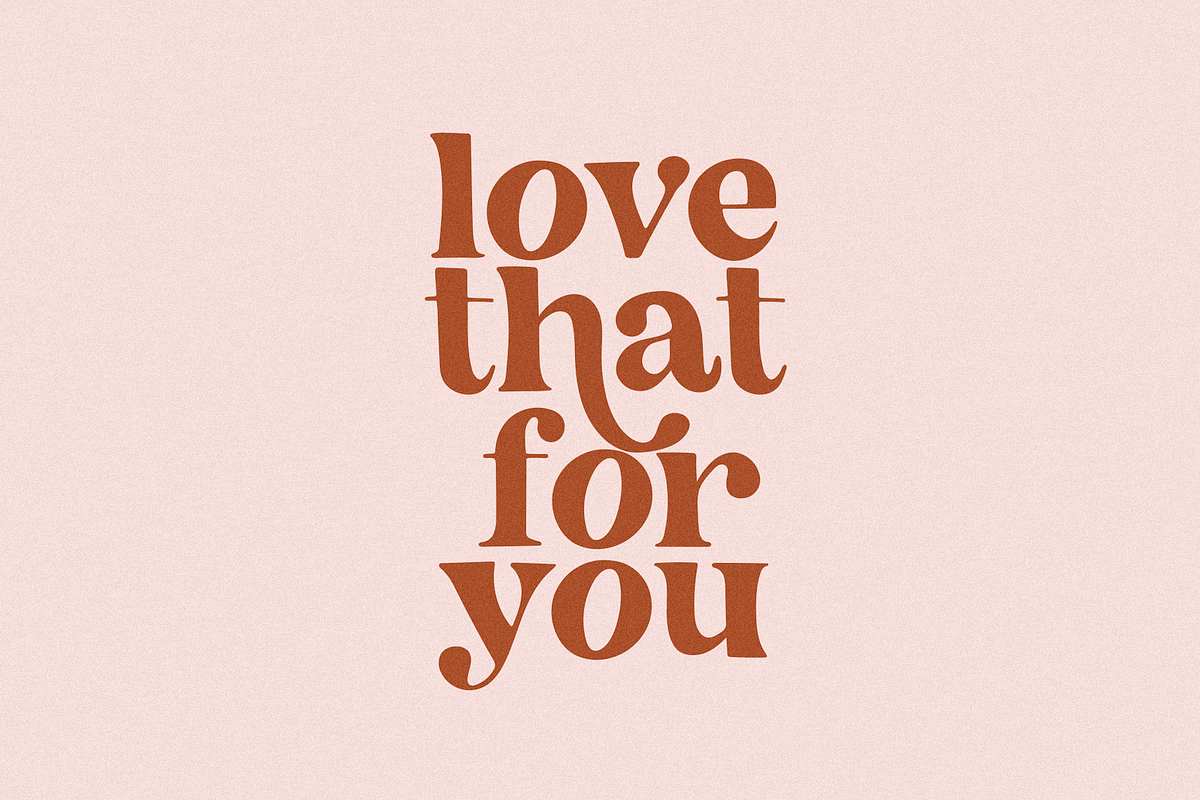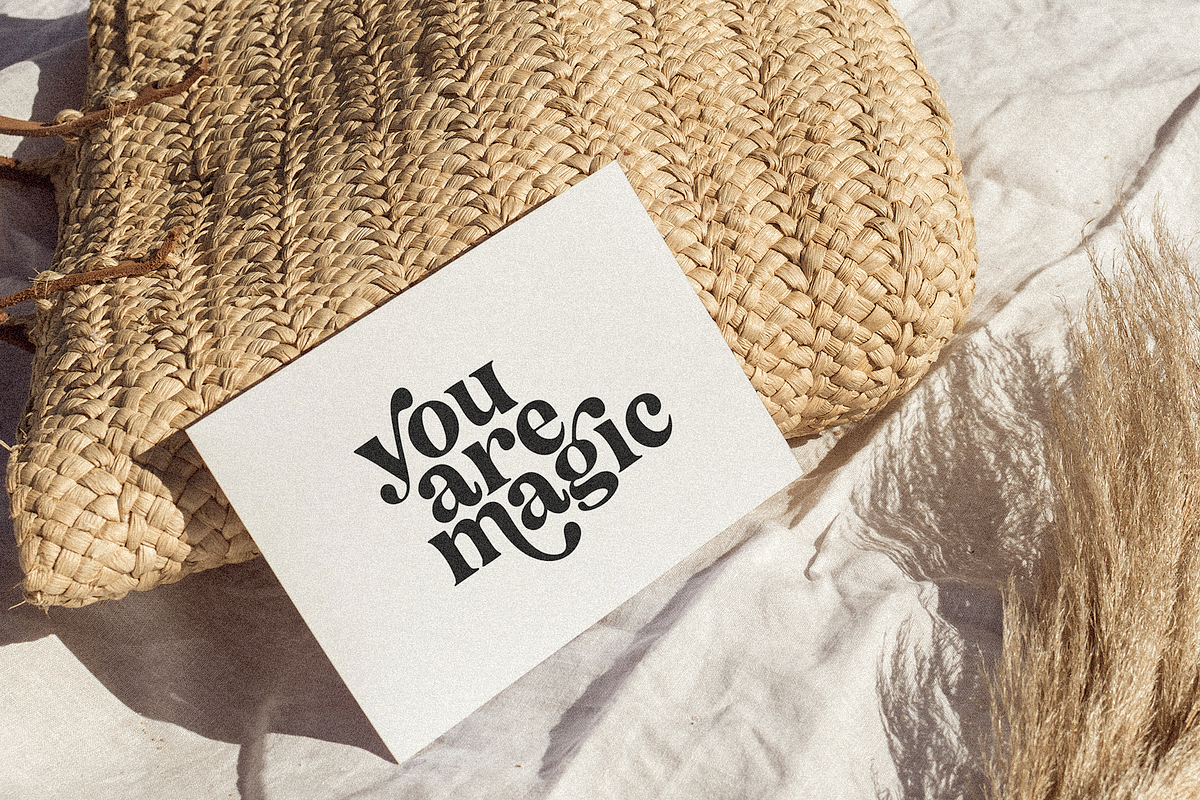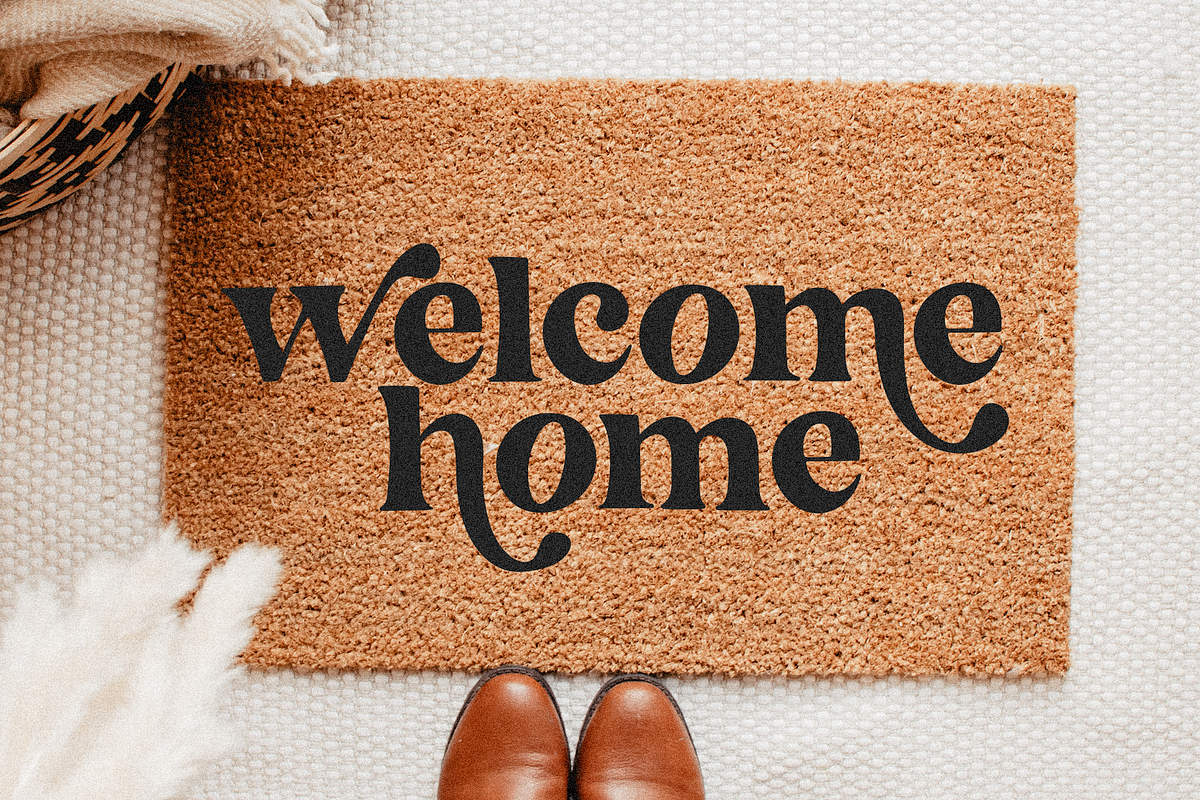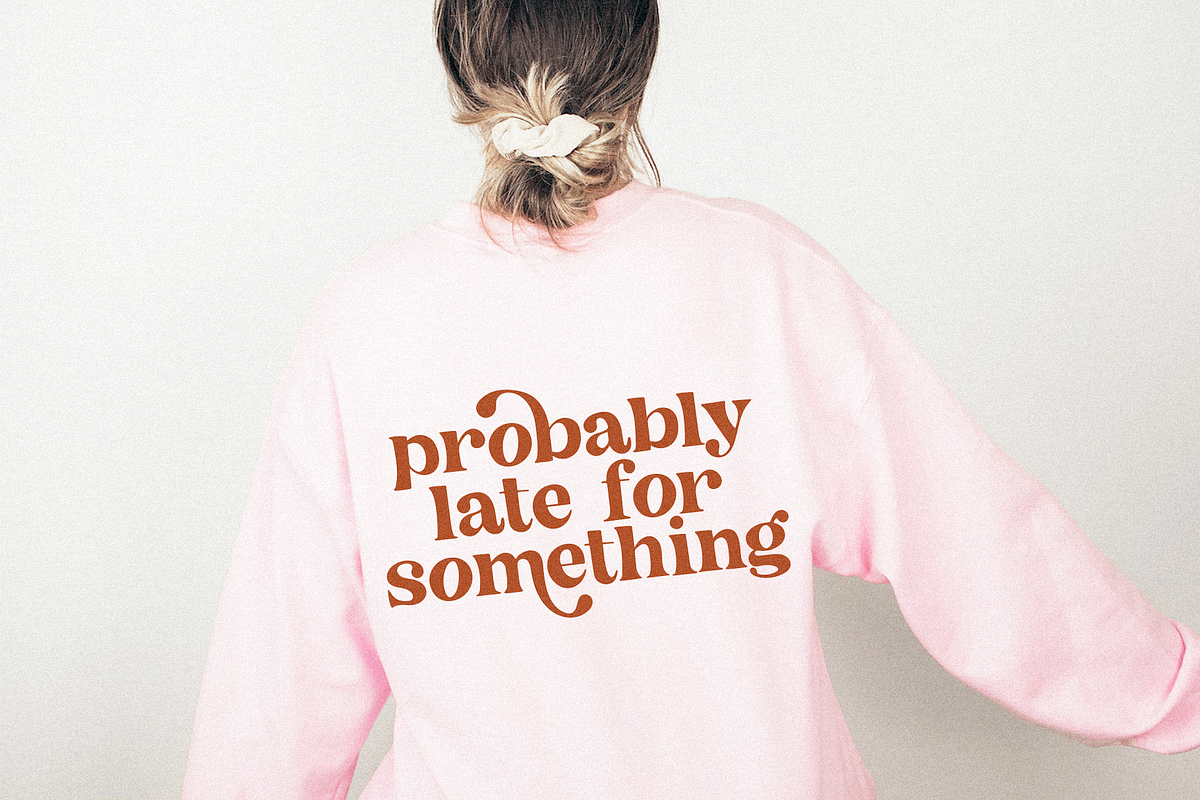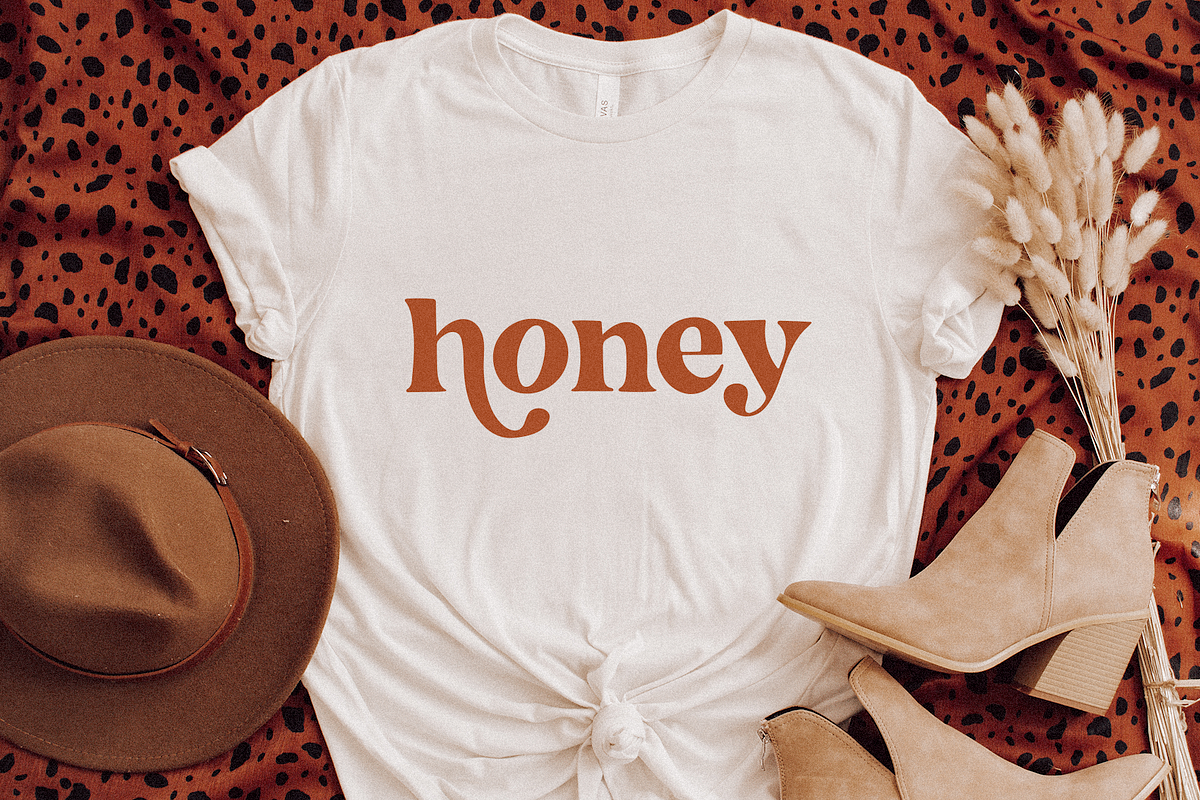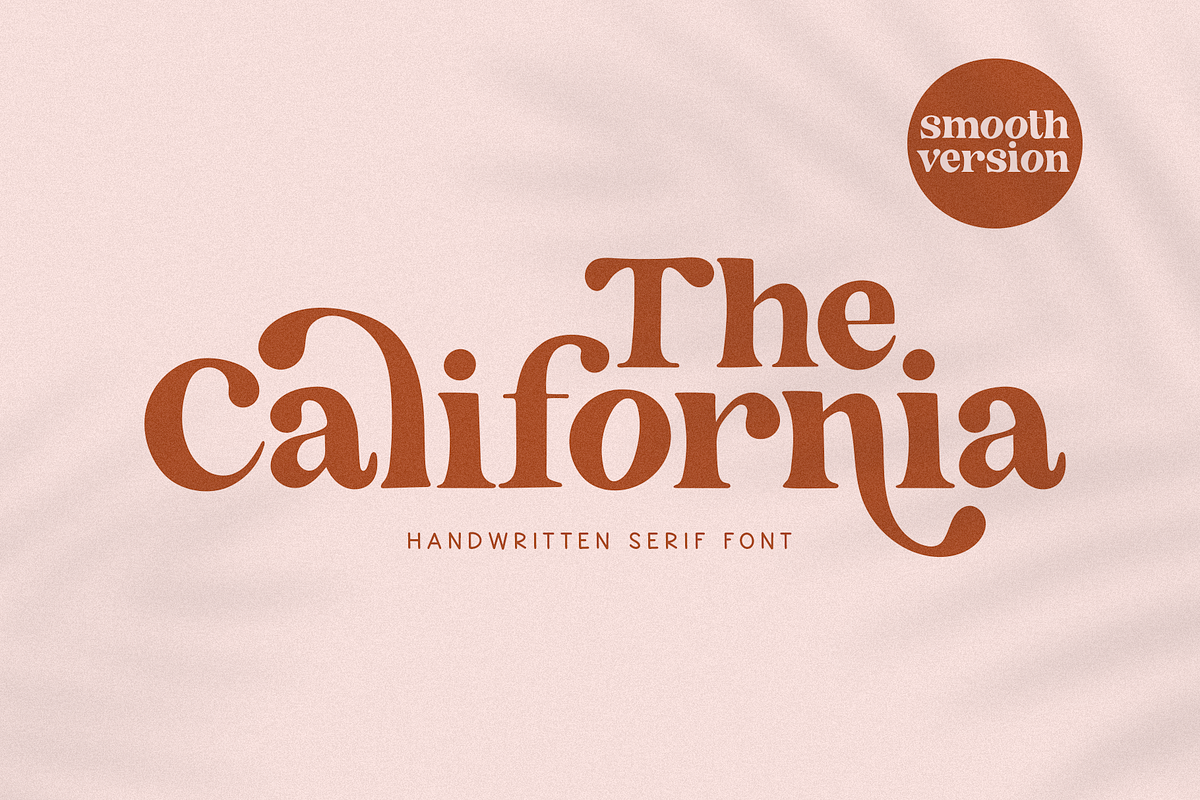
The California | Modern Serif Font
The California is a hand-drawn font duo with a modern look.
This is a solid version of my original font - The California Serif Duo.
This font is perfect for any modern project including branding design, logos, invitations, wedding decor, website design, instagram, business cards, and more!
The alternate letters (letters with swashes) are embedded into the serif font file. You can access these easily in most programs. Please check to make sure you know how to access the alternates in your program of choice.